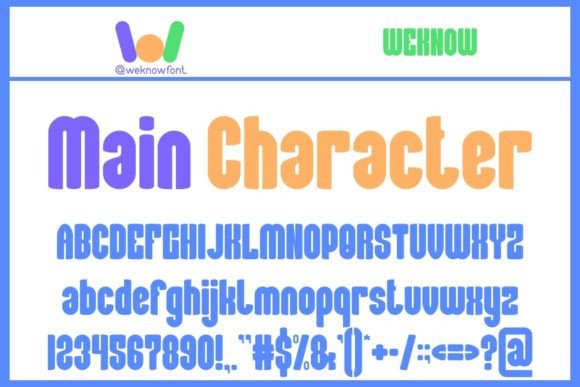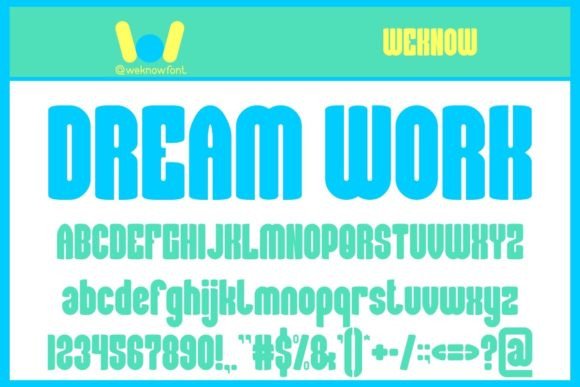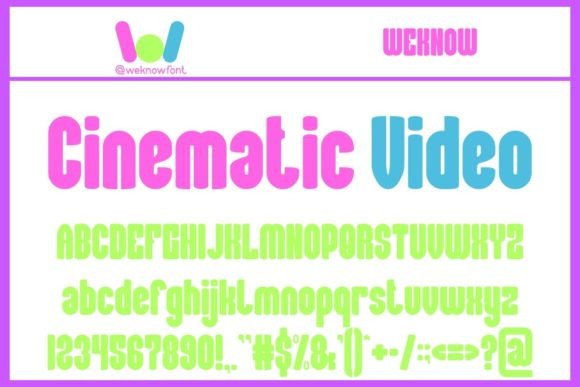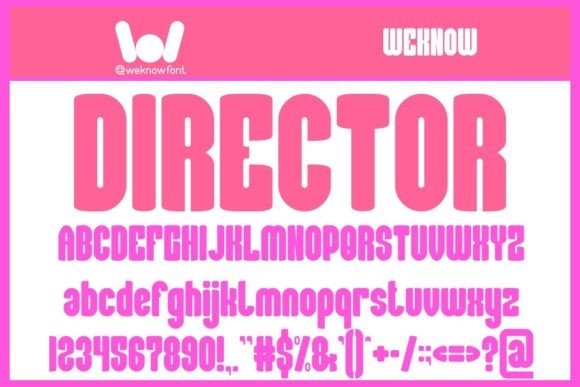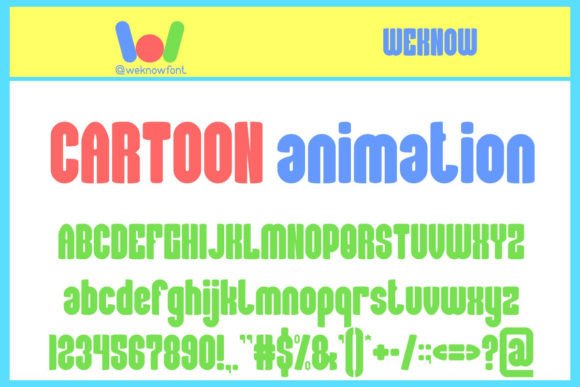
Introducing Cartoon Animation Font: The Ultimate Choice for Fun and Playful Designs
Are you looking for a font that can add a touch of playfulness and authenticity to your designs? Look no further than Cartoon Animation Font! This fun and friendly display font is perfect for children’s activities, school projects, and any design that requires a dash of whimsy. In this article, we’ll explore the features and benefits of Cartoon Animation Font and why it’s a must-have for designers and crafters.
What is Cartoon Animation Font?
Cartoon Animation Font is a chunky lettered font that embodies the spirit of playfulness and fun. Its bold and colorful design makes it perfect for designs that require a high level of visual appeal. Whether you’re creating a children’s book, a school project, or a fun DIY craft, Cartoon Animation Font is the perfect choice.
Key Features of Cartoon Animation Font
- Playful and Authentic Design: Cartoon Animation Font has a unique and playful design that is sure to capture the attention of your audience.
- Chunky Lettering: The font features chunky lettering that adds a fun and whimsical touch to your designs.
- Perfect for Children’s Activities: Cartoon Animation Font is perfect for children’s activities, school projects, and any design that requires a fun and playful touch.
- Easily Readable: Despite its chunky design, Cartoon Animation Font is easily readable, making it perfect for designs that require a high level of legibility.
Benefits of Using Cartoon Animation Font
So, why should you choose Cartoon Animation Font for your designs? Here are just a few benefits of using this amazing font:
- Adds Visual Appeal: Cartoon Animation Font adds a high level of visual appeal to your designs, making them stand out from the crowd.
- Perfect for Branding: The font’s playful and authentic design makes it perfect for branding projects that require a fun and youthful touch.
- Increases Engagement: Cartoon Animation Font is sure to capture the attention of your audience and increase engagement with your designs.
- Versatile: The font is versatile and can be used for a wide range of design projects, from children’s books to DIY crafts.
How to Use Cartoon Animation Font
Using Cartoon Animation Font is easy! Here are a few tips to get you started:
- Pair with Other Fonts: Pair Cartoon Animation Font with other fonts to create a unique and visually appealing design.
- Experiment with Colors: Experiment with different colors to add an extra level of fun and whimsy to your designs.
- Use for Headings and Titles: Use Cartoon Animation Font for headings and titles to add a touch of playfulness and authenticity.
In conclusion, Cartoon Animation Font is a fun and friendly display font that is perfect for designers and crafters looking to add a touch of playfulness and authenticity to their designs. With its chunky lettering, playful design, and easily readable features, Cartoon Animation Font is the perfect choice for children’s activities, school projects, and any design that requires a dash of whimsy. So why wait? Add Cartoon Animation Font to your designs today and watch them come alive!
Get Creative with Cartoon Animation Font
Ready to get creative with Cartoon Animation Font? Here are a few ideas to get you started:
- Children’s Book Illustrations: Use Cartoon Animation Font to create fun and engaging children’s book illustrations.
- DIY Crafts: Add a touch of whimsy to your DIY crafts with Cartoon Animation Font.
- School Projects: Use Cartoon Animation Font to create visually appealing school projects that are sure to impress.